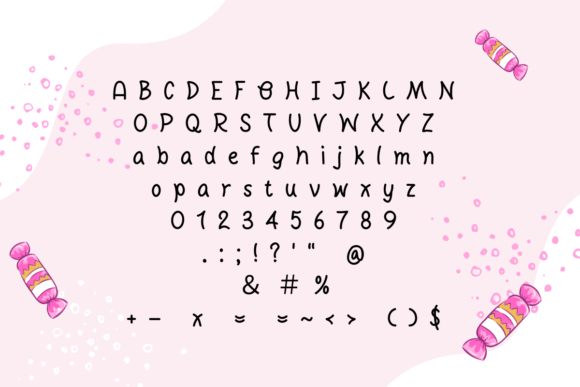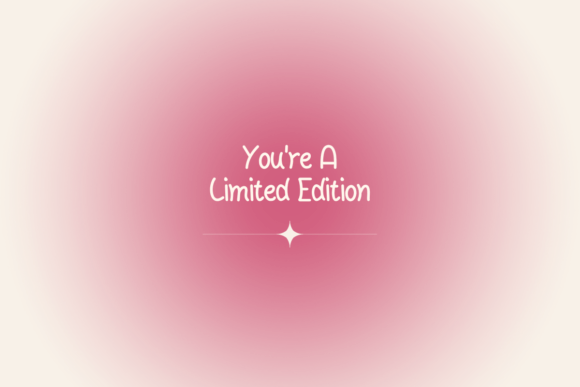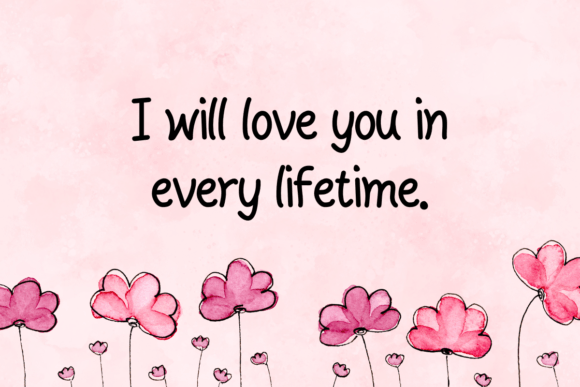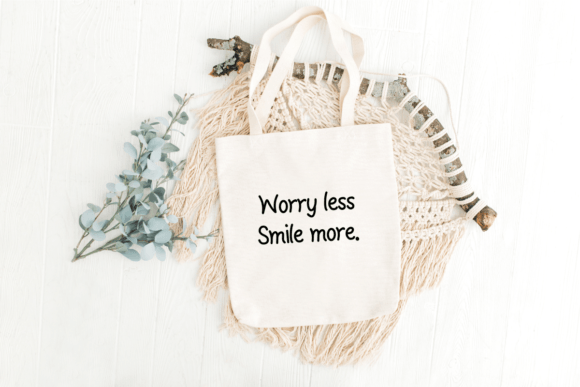
Candy Valentines Font: The Sweetest Addition to Your Design Collection
Are you a designer or crafter looking for a unique and playful font to add a touch of sweetness to your creations? Look no further than Candy Valentines Font! This handwritten font is perfect for a variety of projects, from personal notes and diaries to greeting cards, banners, and more.
What is Candy Valentines Font?
Candy Valentines Font is a beautiful, handwritten font that exudes a sense of playfulness and charm. Its whimsical design makes it perfect for adding a personal touch to any project. Whether you’re creating something for yourself or as a gift for someone special, this font is sure to delight.
Uses for Candy Valentines Font
One of the best things about Candy Valentines Font is its versatility. Here are just a few ideas for how you can use it:
- Note-taking and journaling: Add a touch of personality to your notes and diary entries with this fun and playful font.
- Greeting cards: Create one-of-a-kind greeting cards for special occasions like birthdays, holidays, and anniversaries.
- Banners and signs: Use Candy Valentines Font to create eye-catching banners and signs for parties, events, and more.
- Social media posts: Add a pop of personality to your social media posts and make them stand out from the crowd.
- Mugs and water bottles: Create custom mugs and water bottles with fun and playful designs.
- T-shirts and apparel: Use Candy Valentines Font to create unique and stylish designs for t-shirts, hoodies, and more.
- Stationery and paper crafts: Add a touch of whimsy to your stationery and paper crafts, such as cards, gift tags, and scrapbook pages.
Why Choose Candy Valentines Font?
So why should you choose Candy Valentines Font for your next project? Here are just a few reasons:
- Unique and playful design: Candy Valentines Font has a one-of-a-kind design that’s sure to add a touch of personality to any project.
- Easy to read: Despite its playful design, Candy Valentines Font is easy to read and understand, making it perfect for a variety of uses.
- Versatile: As mentioned earlier, Candy Valentines Font can be used for a wide range of projects, from personal notes to professional designs.
- High-quality: This font is created with high-quality craftsmanship, ensuring that it will look great in any project.
Tips for Using Candy Valentines Font
Here are a few tips for getting the most out of Candy Valentines Font:
- Experiment with different colors: Try pairing Candy Valentines Font with different colors and backgrounds to create unique and eye-catching designs.
- Mix and match with other fonts: Combine Candy Valentines Font with other fonts to create interesting and dynamic designs.
- Use it for titles and headings: Candy Valentines Font is perfect for titles and headings, adding a touch of personality to any project.
- Don’t be afraid to get creative: The possibilities are endless with Candy Valentines Font, so don’t be afraid to try new and creative things!
Candy Valentines Font is a sweet and playful addition to any design collection. Its unique and versatile design makes it perfect for a wide range of projects, from personal notes and diaries to greeting cards, banners, and more. Whether you’re a designer, crafter, or simply someone who loves to create, Candy Valentines Font is sure to delight. So why not give it a try and see what amazing creations you can come up with?